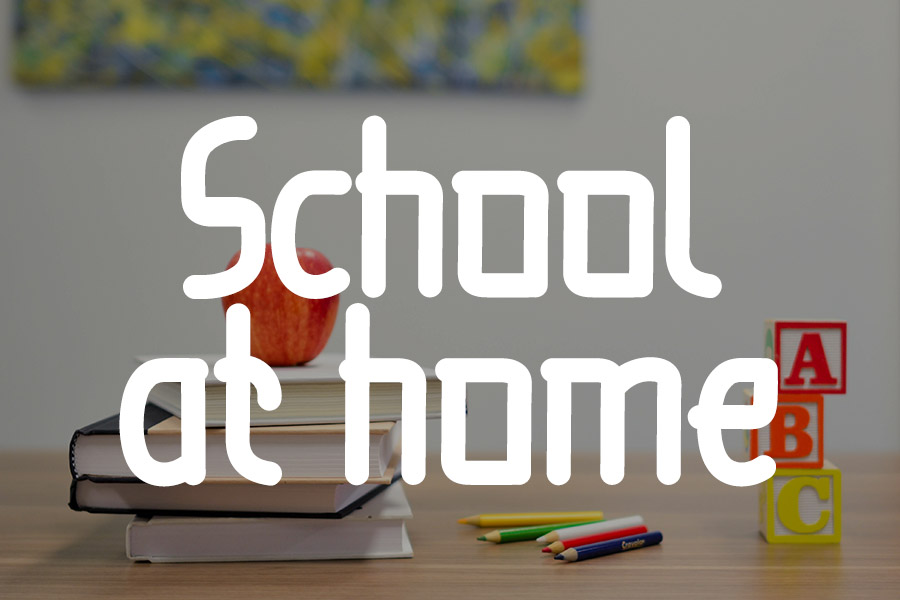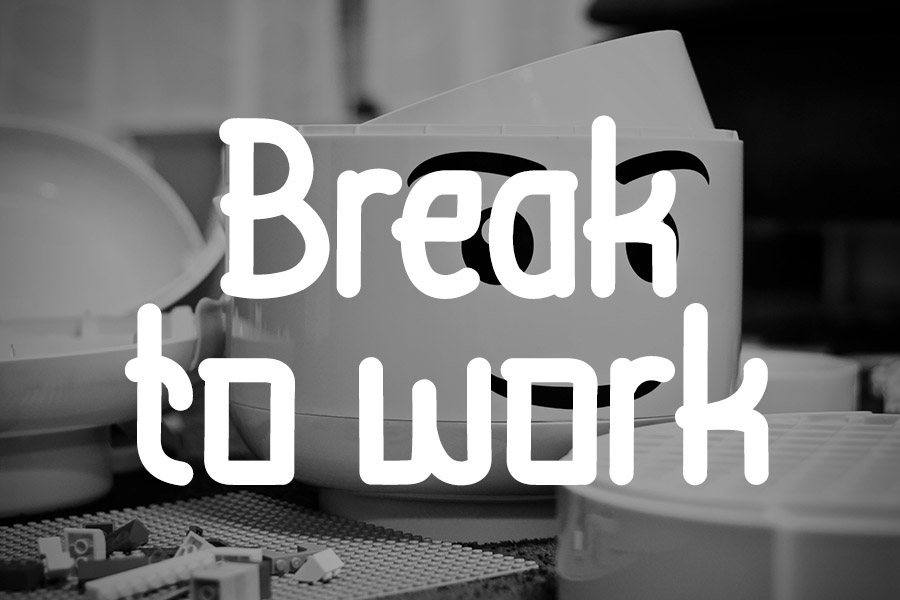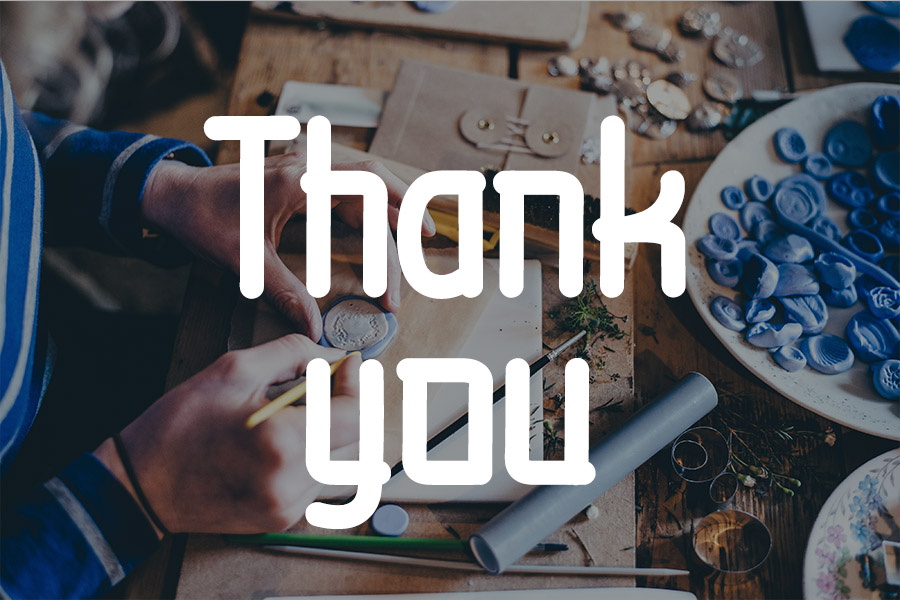
Stable Display Typeface
It’s a bold and simple handwritten font. Clean and a little bit quirky, this font is the perfect fit for all of your logos, branding, social media, and crafty DIY projects.